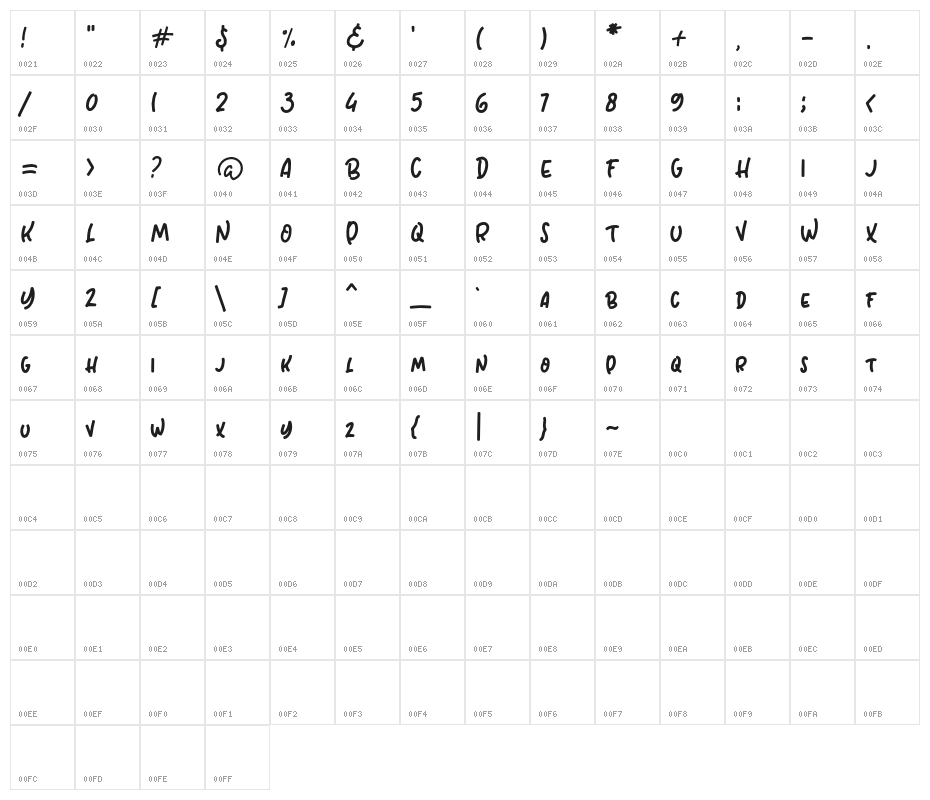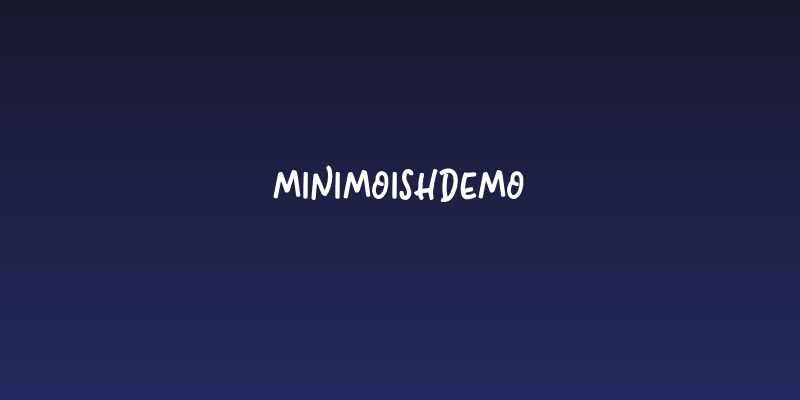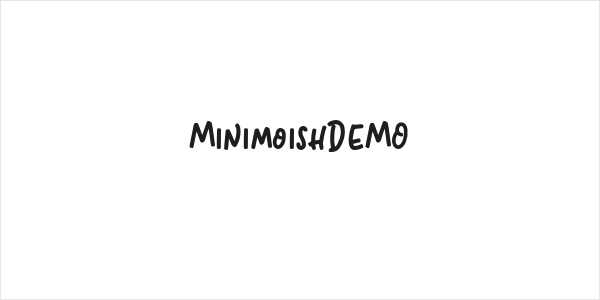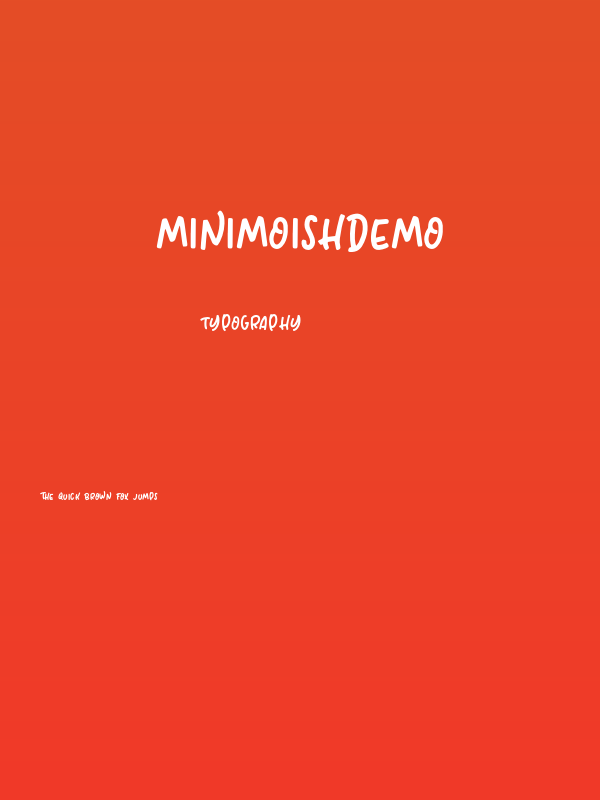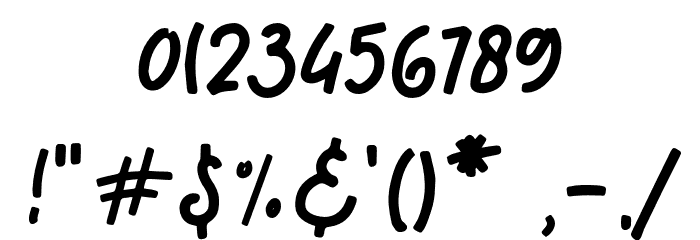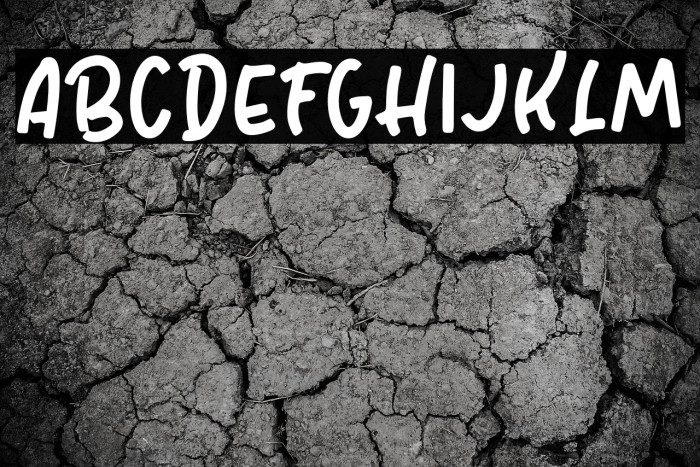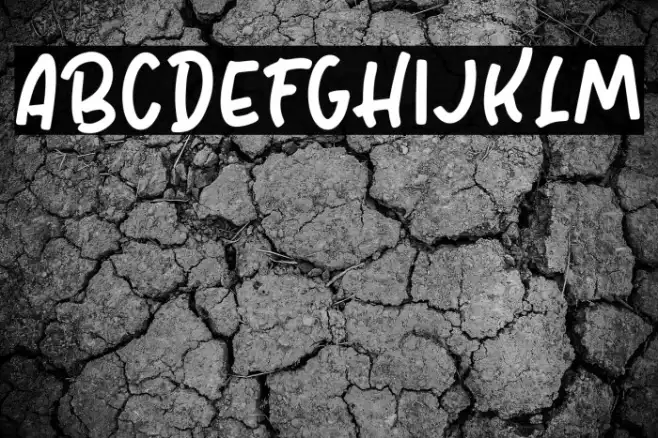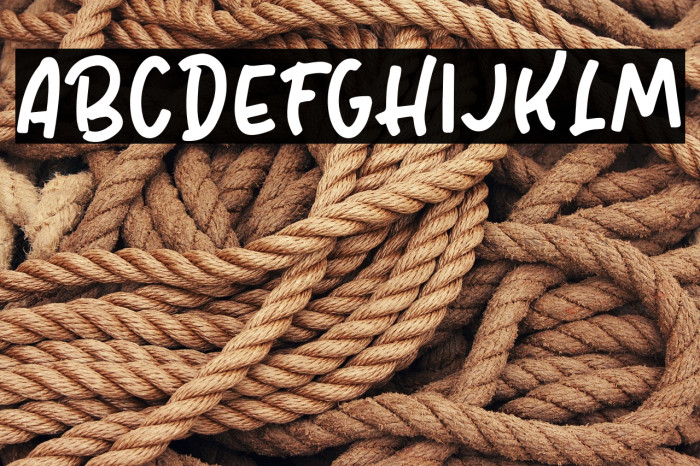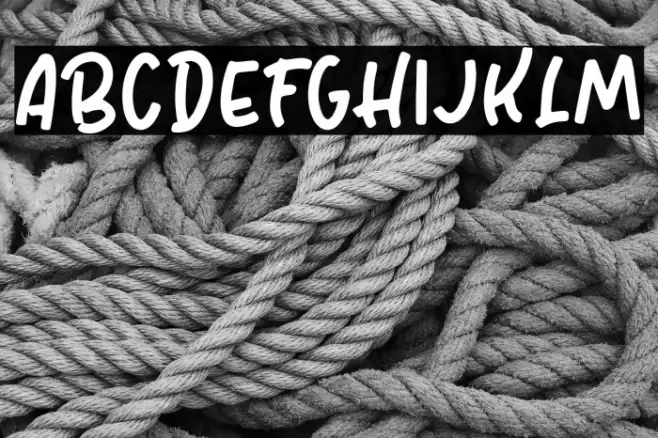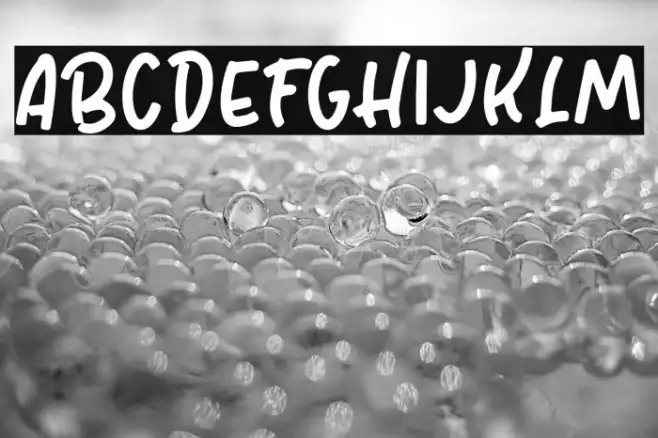
MinimoishDEMO Font
MinimoishDEMO Description
This font features a playful and casual handwritten style, characterized by its bold and rounded letterforms. The strokes are smooth and consistent, giving it a friendly and approachable appearance. The uppercase and lowercase letters maintain a uniform style, with a slight slant that adds to its informal charm. The numerals and special characters are designed to match the overall aesthetic, ensuring coherence across all elements. This font is ideal for projects that require a personal touch, such as invitations, greeting cards, or branding for creative businesses. Its legibility and unique style make it suitable for both digital and print media.
| Proposed Projects | Ideal for invitations, greeting cards, creative branding, and personal projects. |